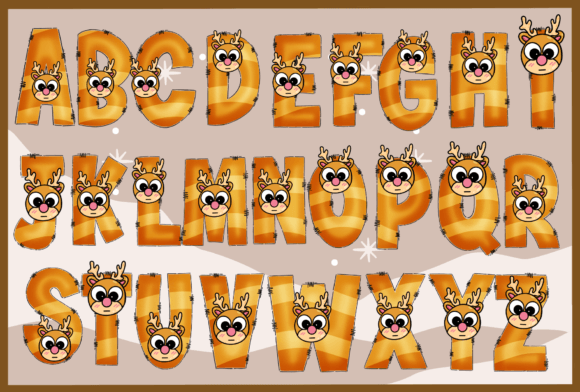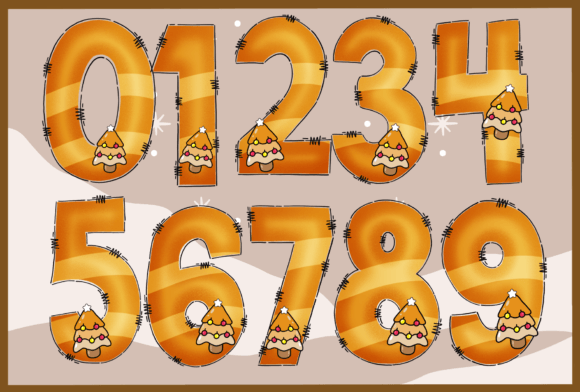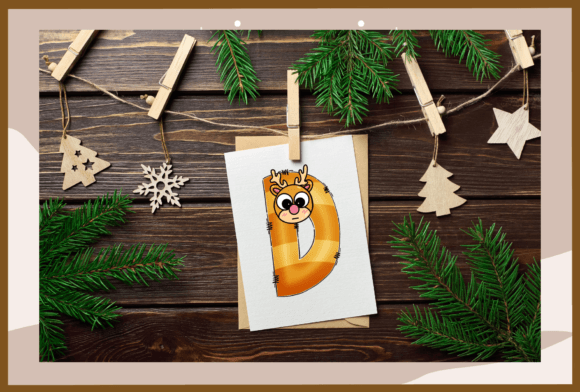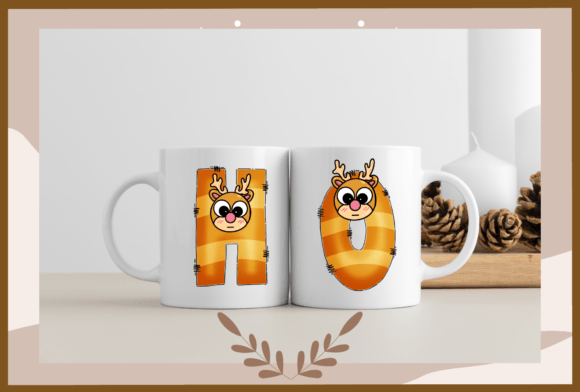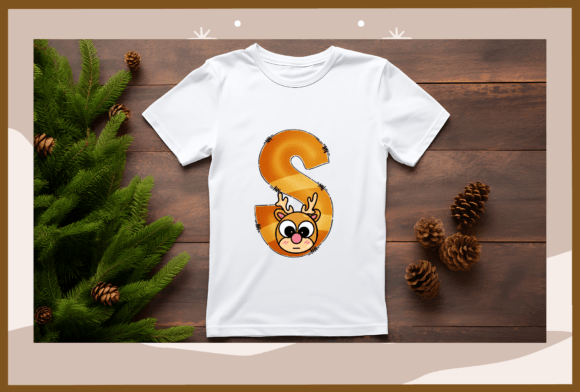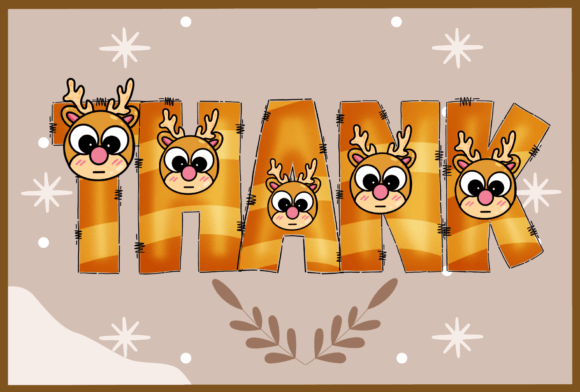
Introducing Christmas Reindeers Font: A Festive and Versatile Handwriting Font
Are you looking for a font that captures the magic of the holiday season? Look no further than Christmas Reindeers Font, a super cute handwriting font with a simple style that’s perfect for a wide range of applications. Whether you’re a teacher, advertiser, or crafter, this font is sure to bring a touch of festive cheer to your projects.
What Makes Christmas Reindeers Font So Special?
Christmas Reindeers Font is a creative and versatile design that’s suitable for teaching, decorating presentations, and various other purposes. Its simple yet adorable style makes it perfect for:
- Education: Use it to create engaging lesson plans, worksheets, and educational materials that will delight your students.
- Advertising: Add a touch of festive fun to your holiday ads and marketing materials.
- Illustration: Use it to create charming illustrations, graphics, and artwork for your projects.
Christmas Reindeers Font comes in both black and color versions, making it compatible with a range of design programs and cutting machines.
Tips and Tricks for Using Christmas Reindeers Font
Here are a few tips and tricks to help you get the most out of Christmas Reindeers Font:
- Experiment with different font sizes and styles to add visual interest to your projects.
- Use the font to create custom holiday cards, invitations, and gift tags.
- Pair the font with other festive fonts and graphics to create a unique and eye-catching design.
Christmas Reindeers Font is a fun and versatile handwriting font that’s perfect for designers, crafters, and educators. With its simple yet adorable style, it’s sure to bring a touch of festive cheer to your projects. Whether you’re creating educational materials, advertising campaigns, or handmade crafts, this font is sure to delight.